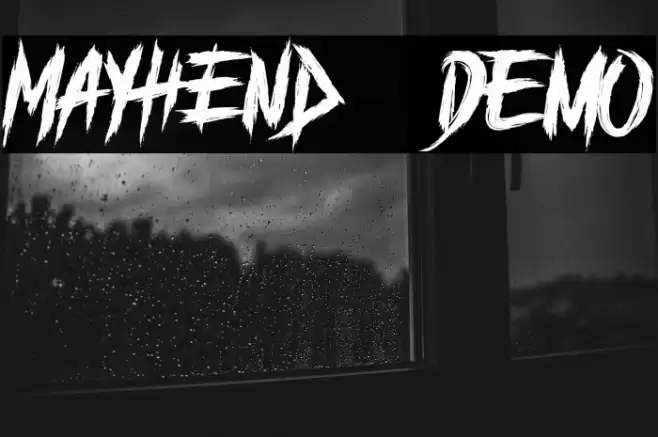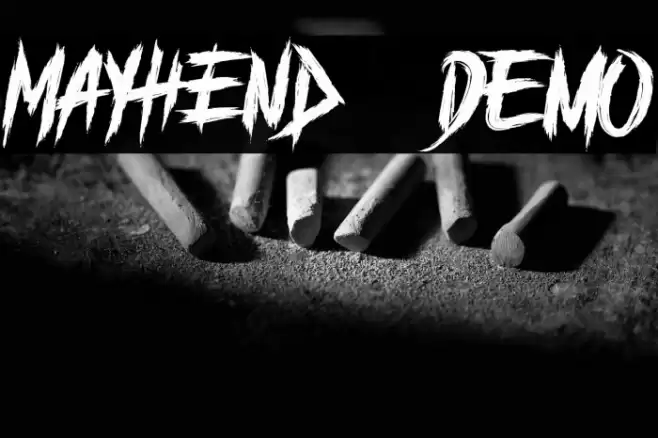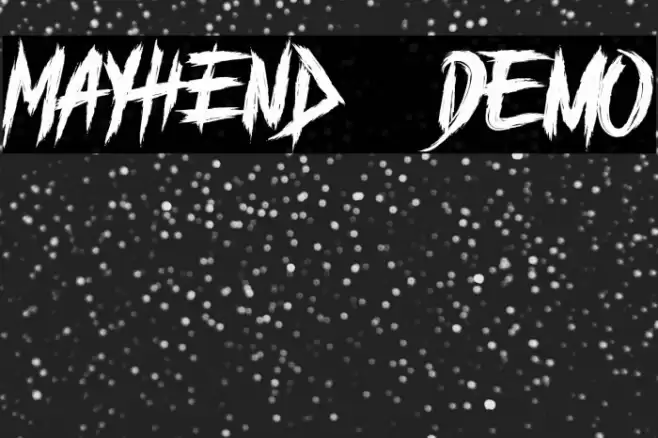
MAYHEND - demo Font
MAYHEND - demo Description
This font features a bold, aggressive style with sharp, jagged edges that give it a dynamic and energetic feel. The strokes are uneven and rough, resembling brush strokes or scratches, which adds a raw and edgy character to the typeface. The uppercase and lowercase letters maintain a consistent style, with a slightly condensed appearance that enhances the intensity of the design. The numbers and special characters follow the same aesthetic, ensuring a cohesive look across all elements. This font is ideal for projects that require a strong, impactful visual presence.
A bold, jagged font with a raw, energetic style from Uncategorized fonts.
- Proposed Projects: Perfect for music album covers, movie posters, video game titles, and any project needing a bold, edgy look.
- Character Spacing: Tight
- Overall Style: Modern, Edgy